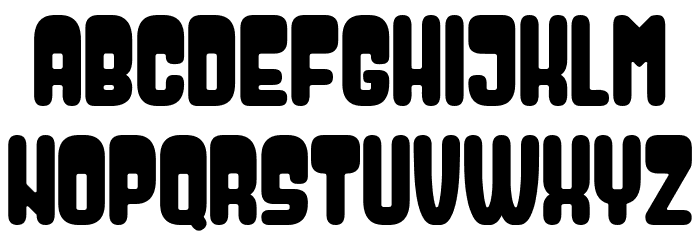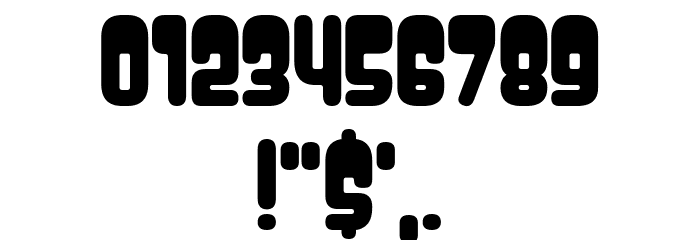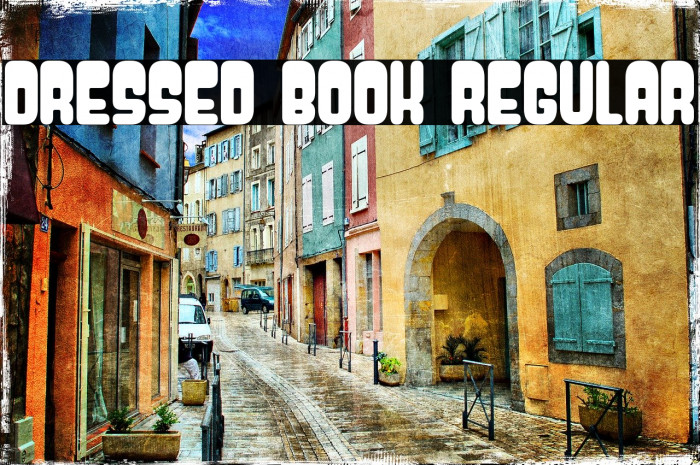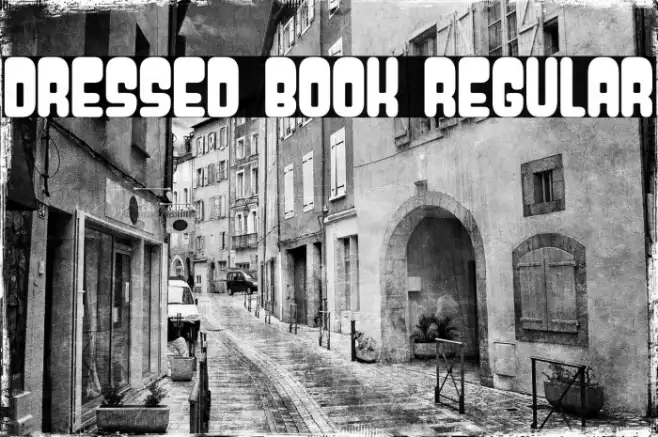
Dressed Book Regular Font
This font features bold, rounded characters with a playful and modern aesthetic. The letters are uniformly thick, giving them a strong presence on the page. The rounded edges soften the overall look, making it approachable and friendly. The characters are evenly spaced, ensuring readability while maintaining a compact appearance. This style is particularly effective for creating eye-catching headlines or logos that require a bold statement. The numbers and special characters follow the same design principles, ensuring consistency across all elements.
A bold, rounded font with a playful and modern aesthetic.
- Font: Dressed Book Regular
- Proposed Projects: Ideal for branding, headlines, posters, and any design project that requires a bold and approachable typeface.